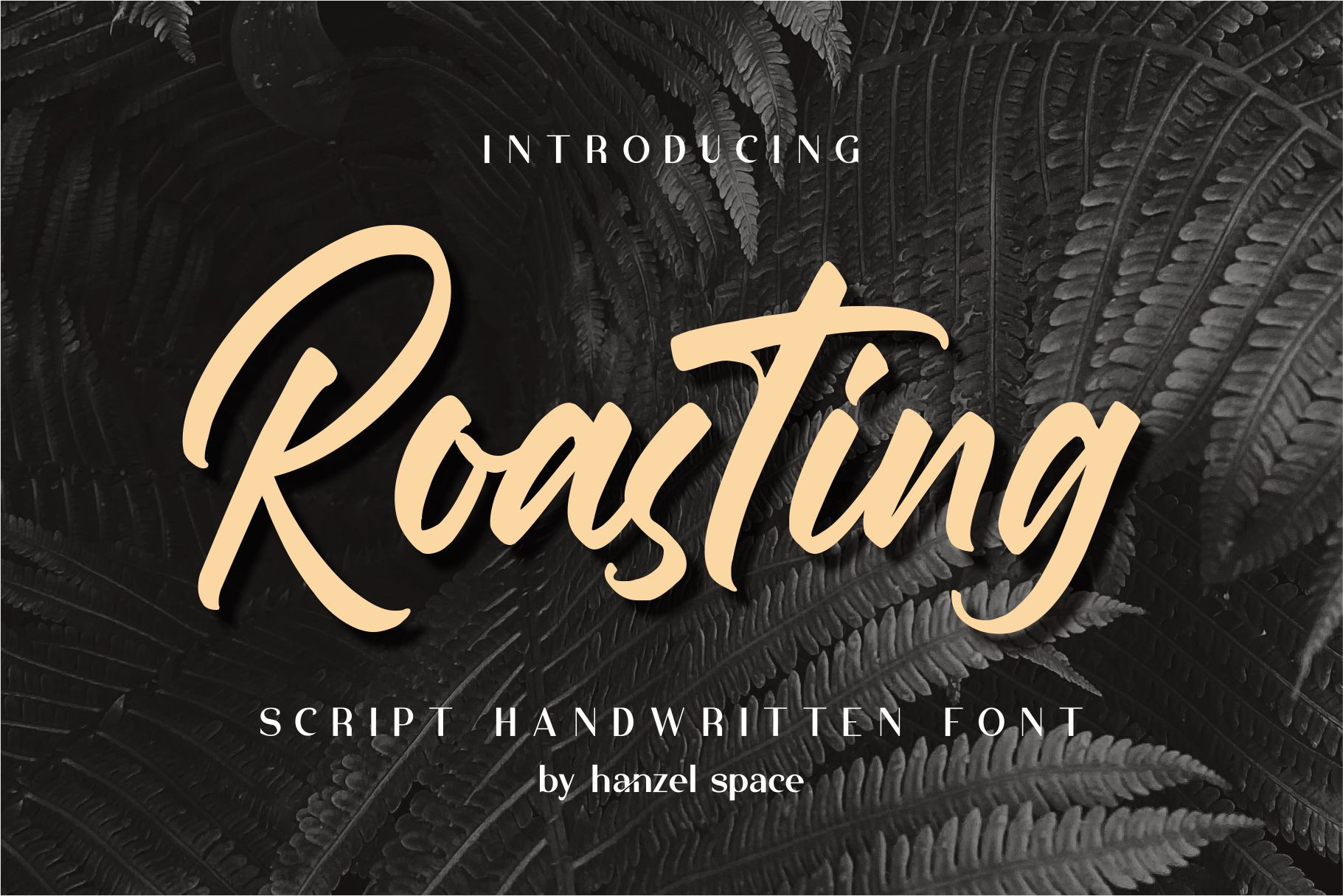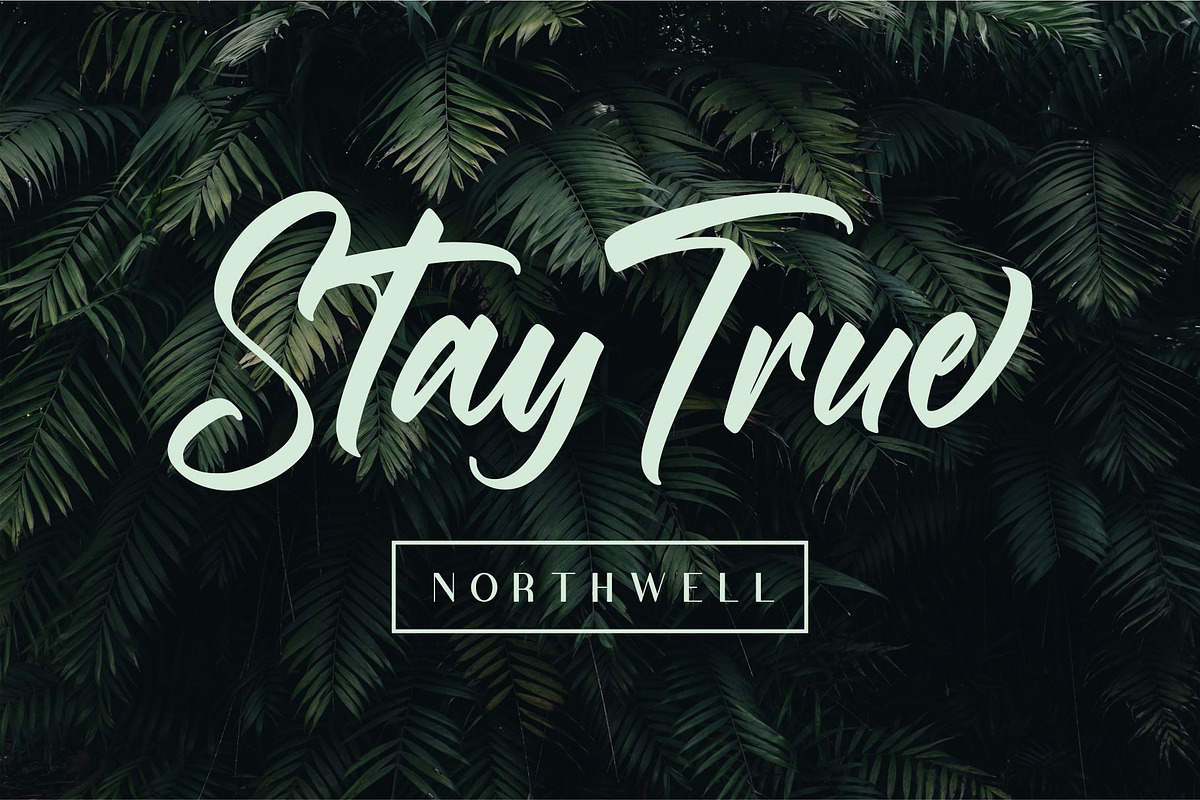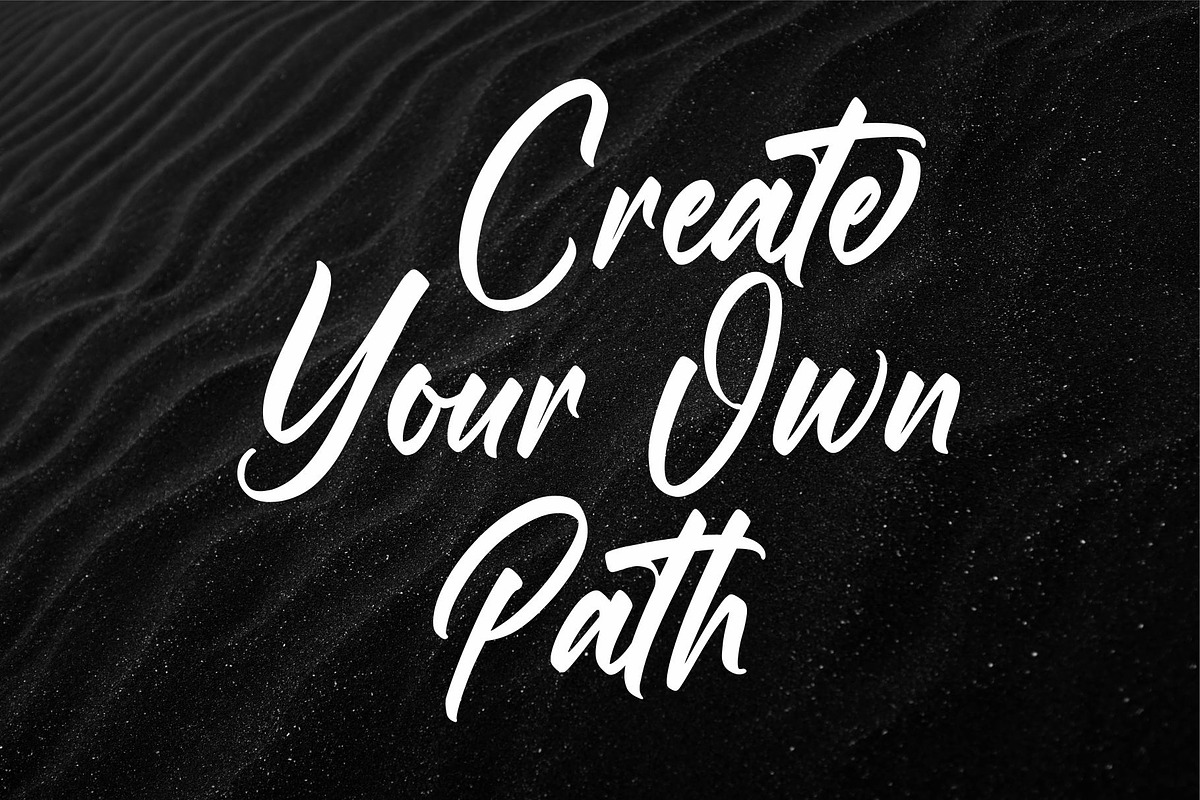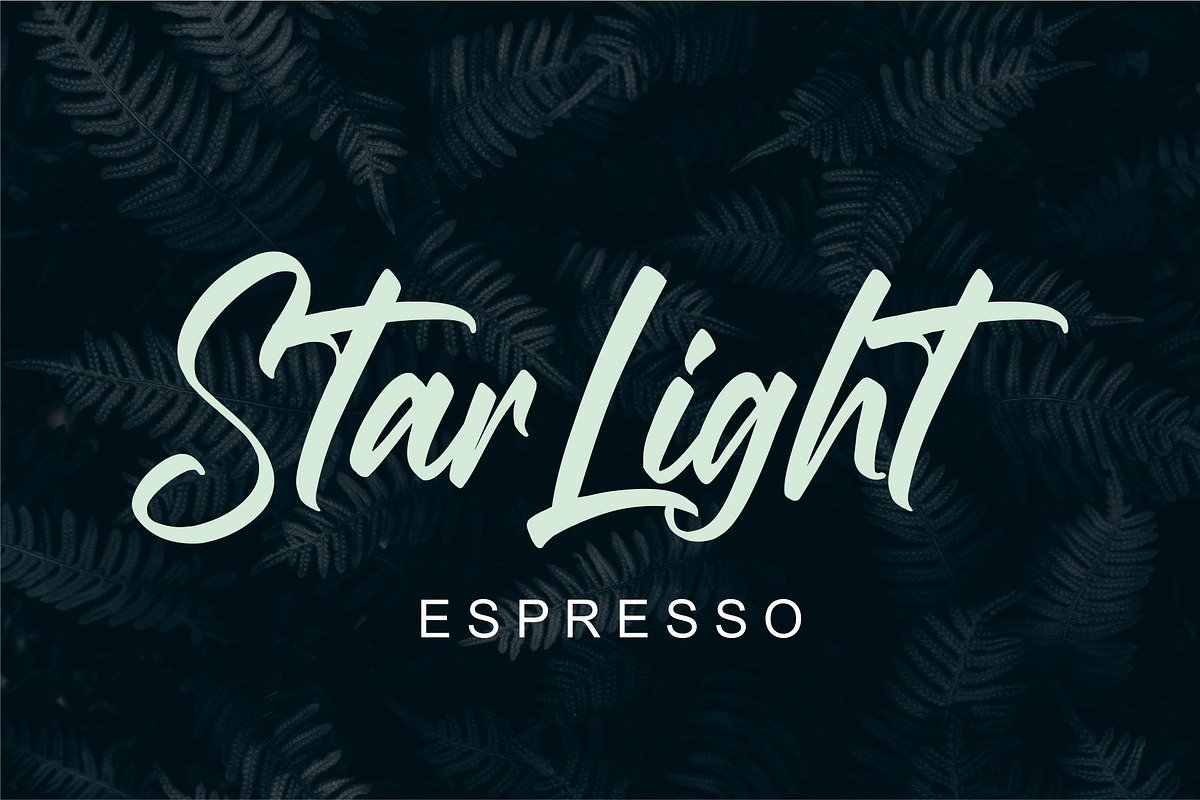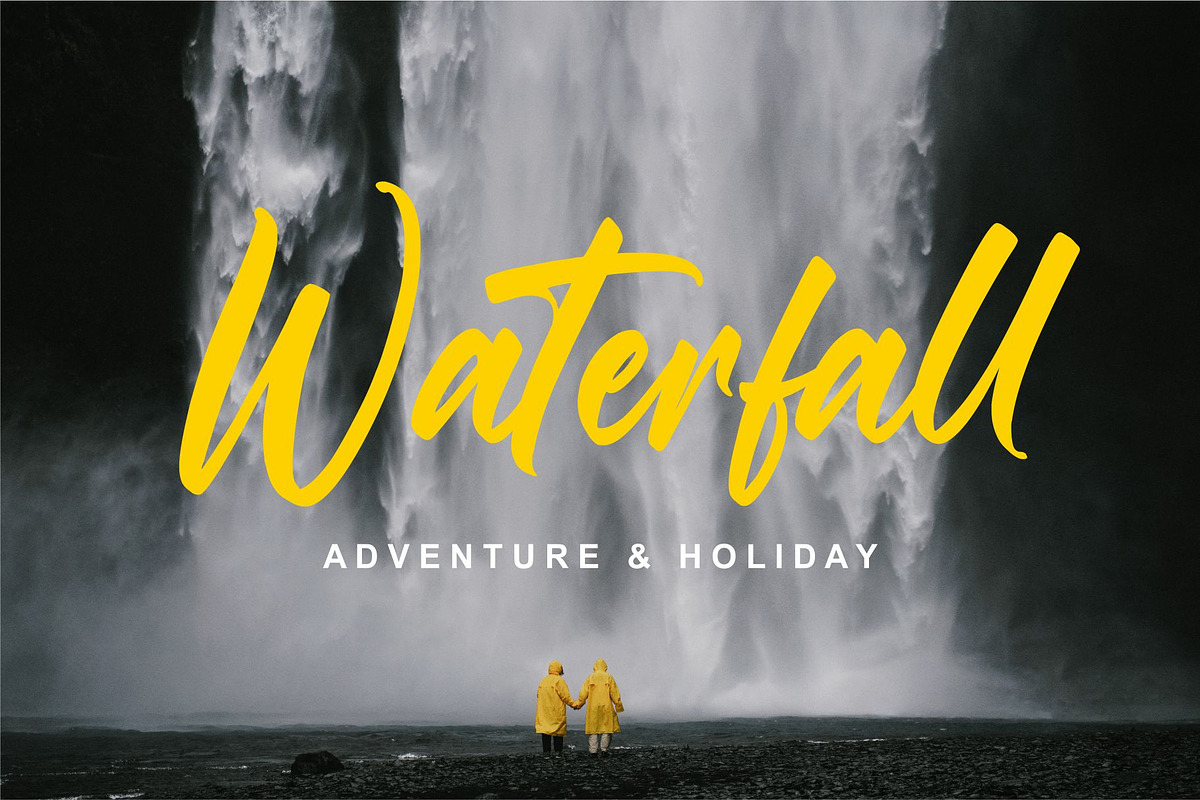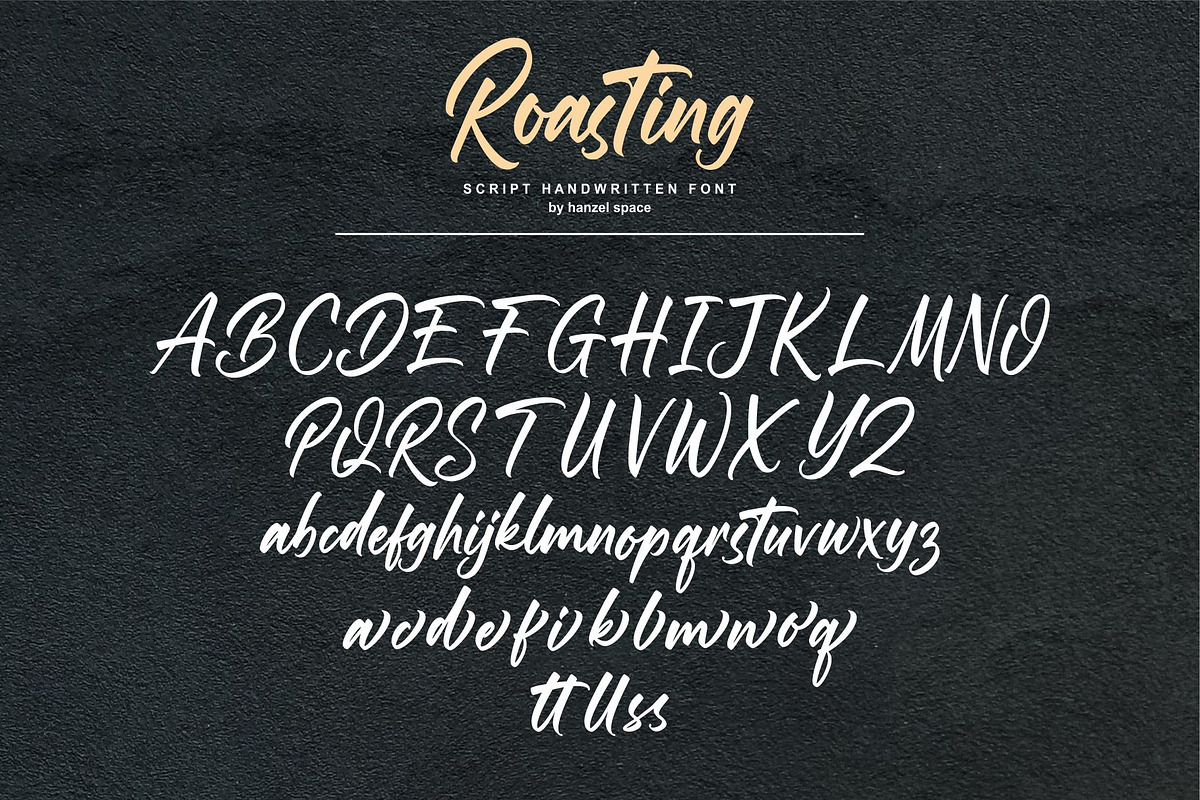
Roasting Script Handwritten Font
Roasting Script Handwritten Font with contemporary, sophisticated accents. It is perfect for branding, wedding invites, tagline, cards, maybe for label and logo.
Roasting includes full set of gorgeous uppercase and lowercase letters, numerals, a large range of punctuation and ligatures. It expresses beauty of handwriting. What you get, darling?